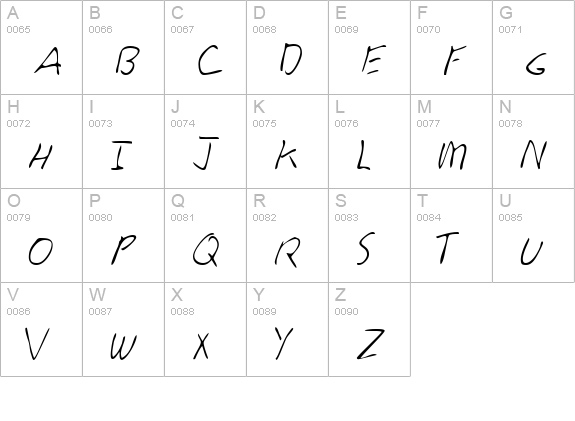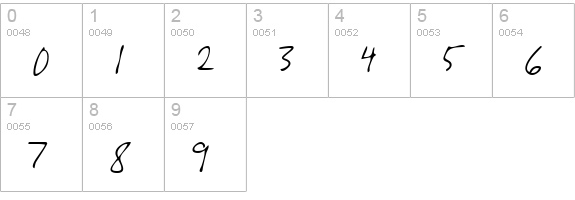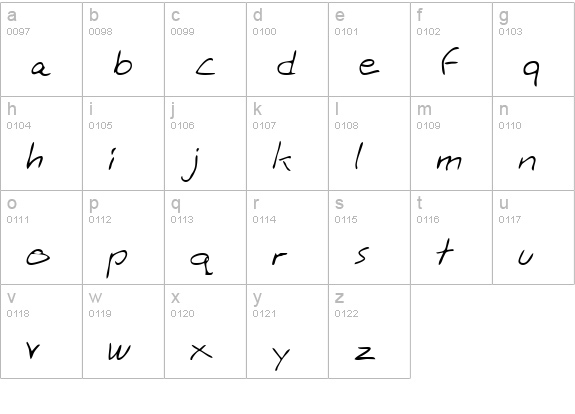
AlisonsHand Regular Font Details
AlisonsHand Regular is the standard, neutral variant in the AlisonsHand typeface family \xE2\x80\x94 well suited to general body text, paragraphs, and standard typographic work.
AlisonsHand Regular font is a charming and elegant typeface that adds a touch of sophistication to any design project. With its flowing and graceful strokes, this font exudes a sense of creativity and uniqueness. Perfect for invitations, greeting cards, logos, and more, AlisonsHand Regular font is sure to make your text stand out. The best part? AlisonsHand Regular font is available for free download at FontsMarket.com. Simply visit the website and start using this beautiful font in your projects today. Don't miss out on the opportunity to enhance your designs with this exquisite typeface.